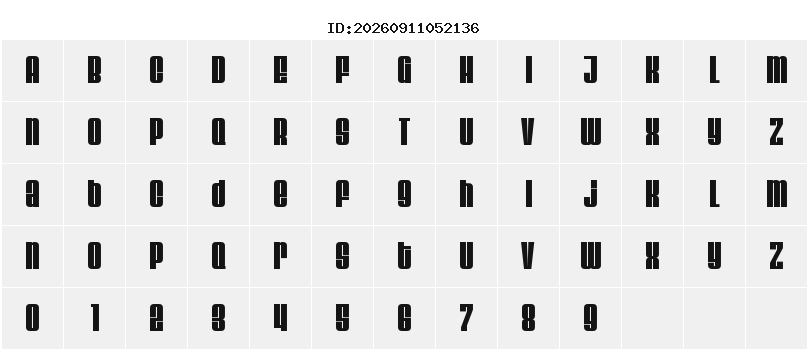
• Font Name: Velvenda Megablack
• Designer: Ray Larabie
• Description: This fonts is freeware. Inspired by a font from the 1960's called Stark.
About Velvenda Megablack.ttf
Velvenda Megablack.ttf is a modern, elegant sans-serif font designed for ultimate readability and visual harmony. Perfect for branding, headlines, web design, and print materials.